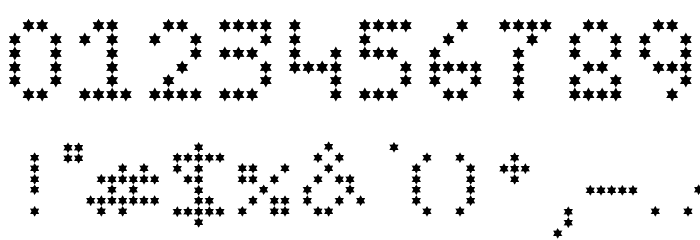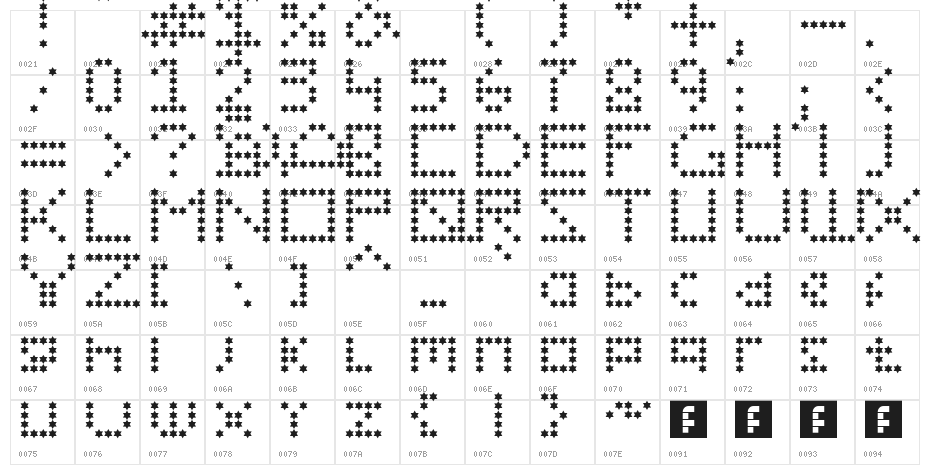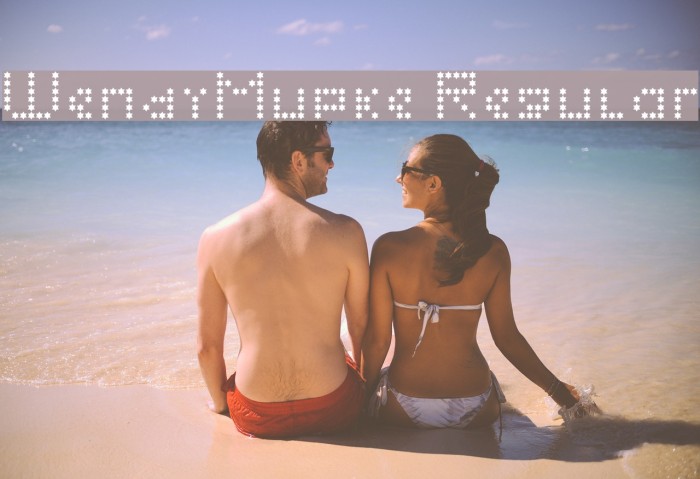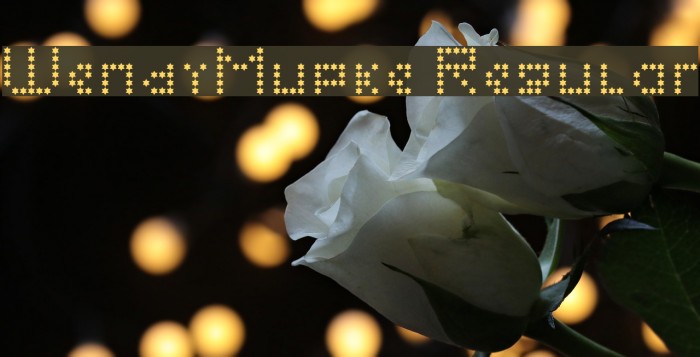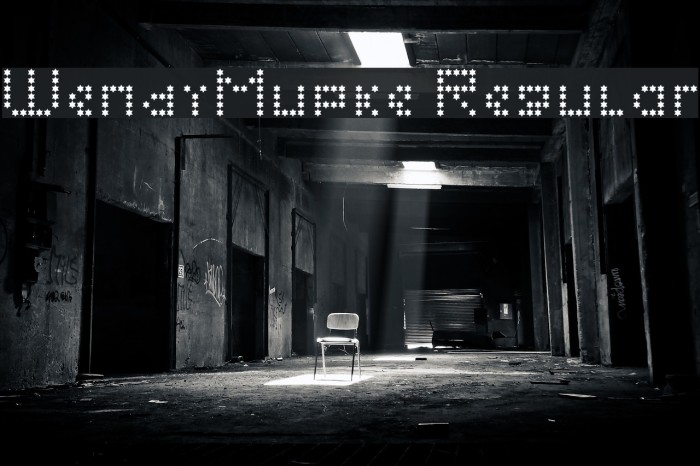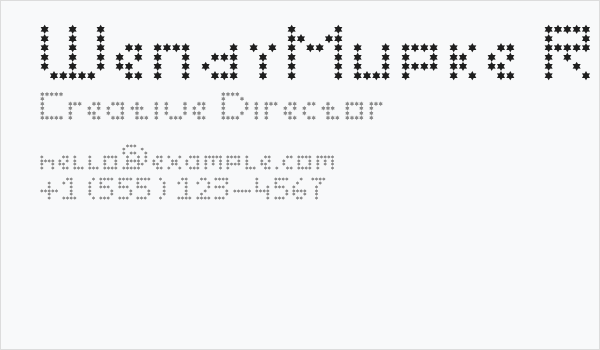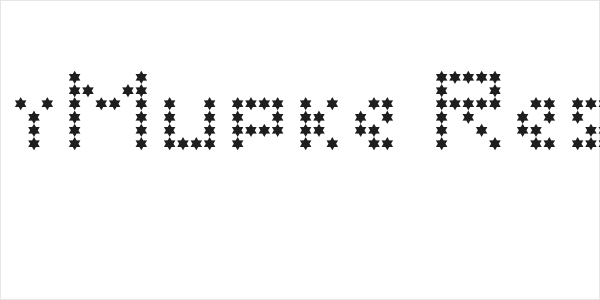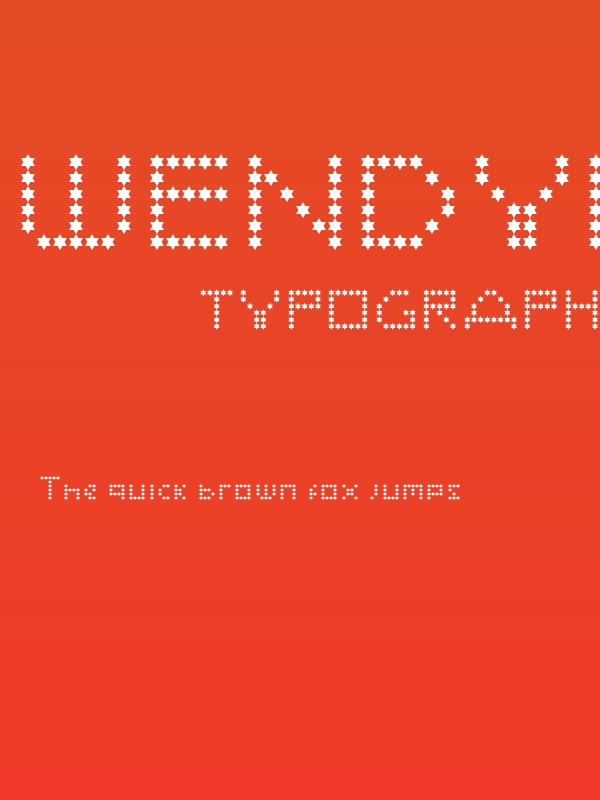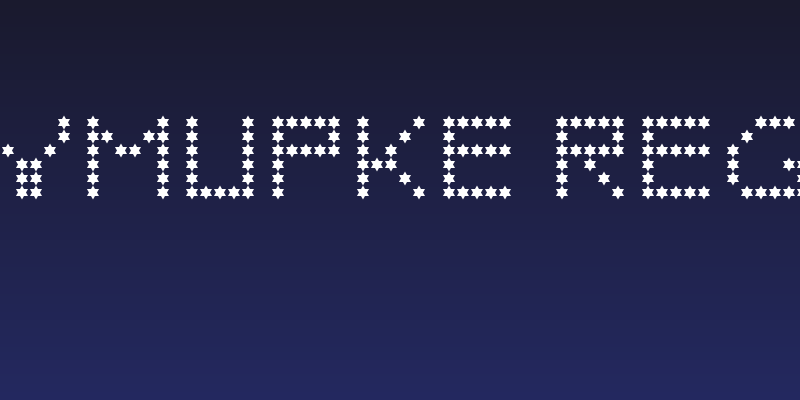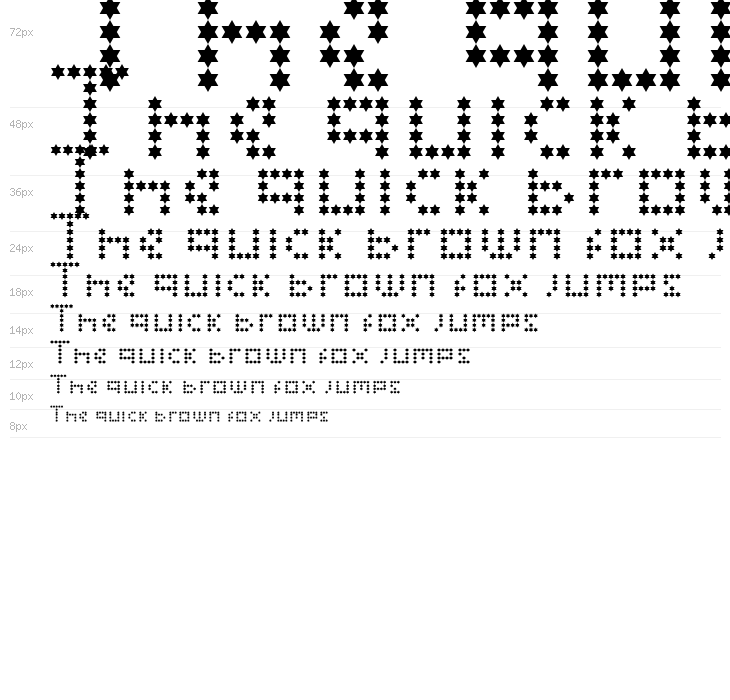
WendyMupke Regular Font
WendyMupke Regular Description
This unique font is composed entirely of star-shaped elements, creating a playful and eye-catching appearance. Each character is meticulously crafted with a series of stars, giving it a distinct and decorative style. The font maintains a consistent structure across uppercase, lowercase, numbers, and special characters, ensuring readability while adding a whimsical touch. Its geometric design is both modern and artistic, making it suitable for creative projects that require a standout typographic element. The uniformity of the star shapes across all characters provides a cohesive look, while the spacing between the stars adds a textured effect that enhances its visual appeal.
| Proposed Projects | Ideal for children's books, party invitations, festive posters, and any design needing a whimsical touch. |